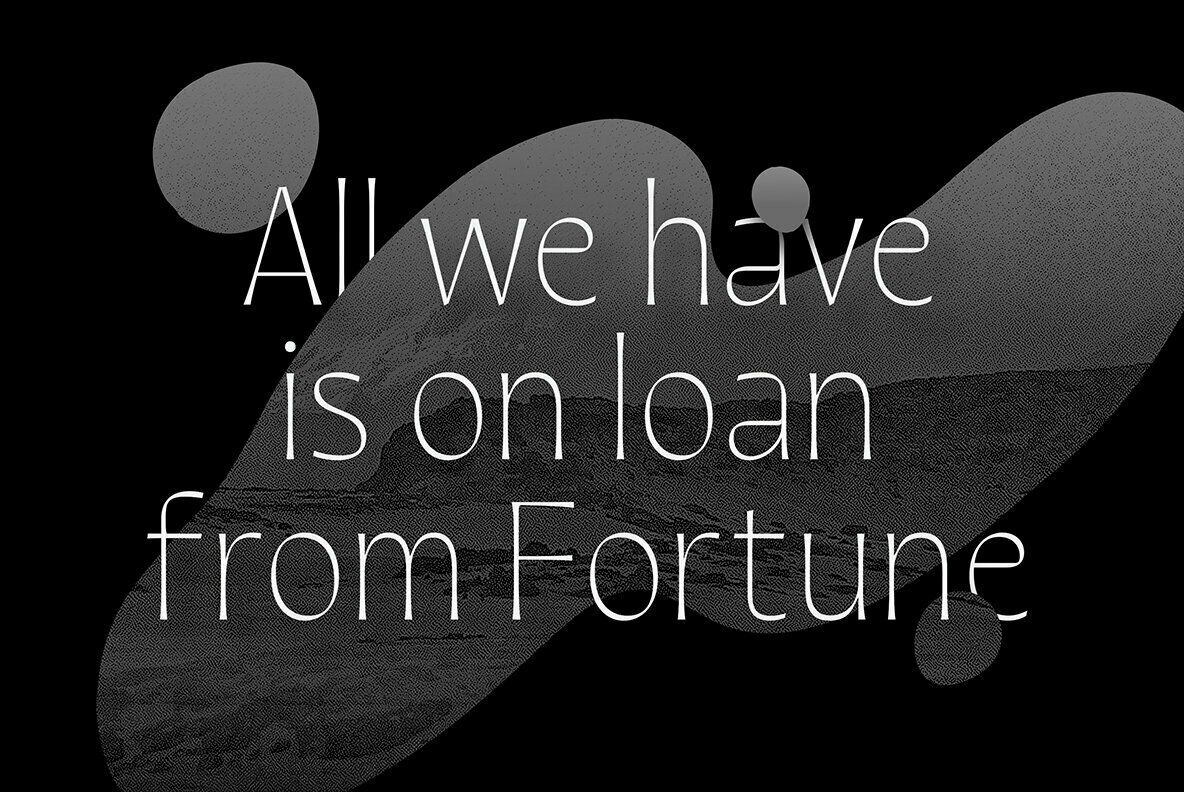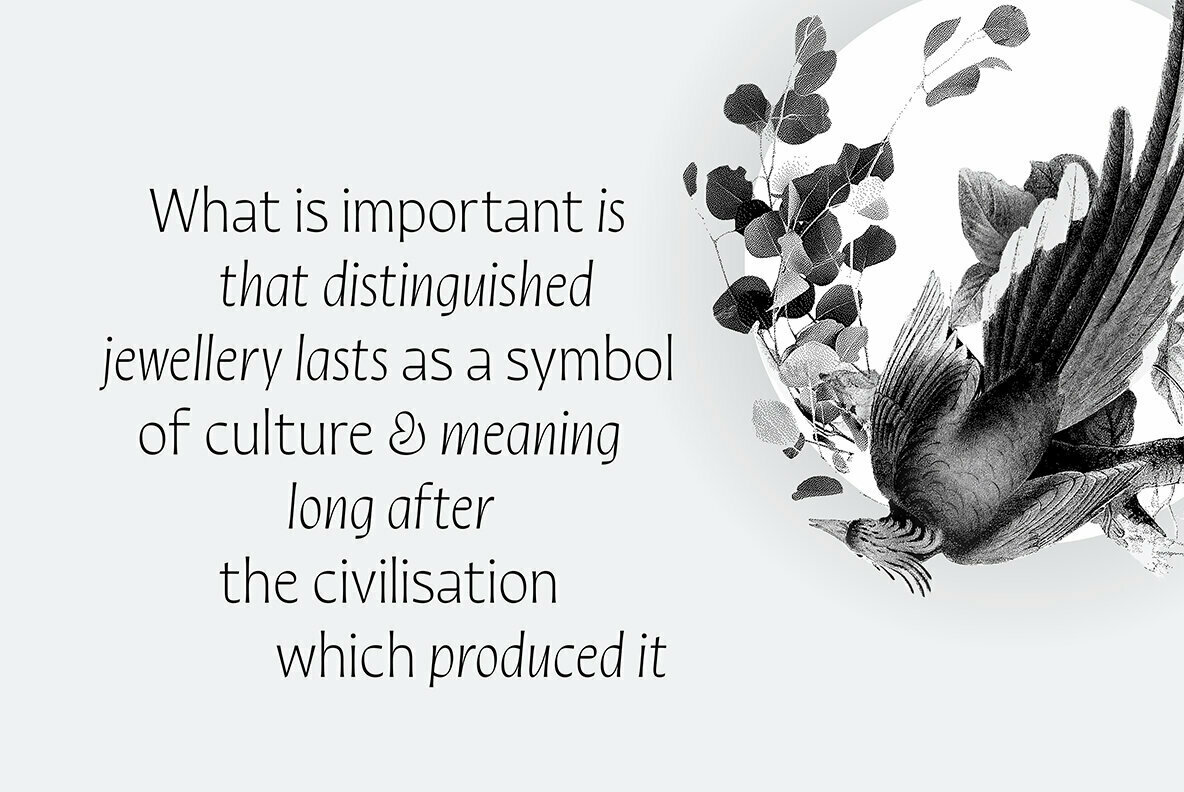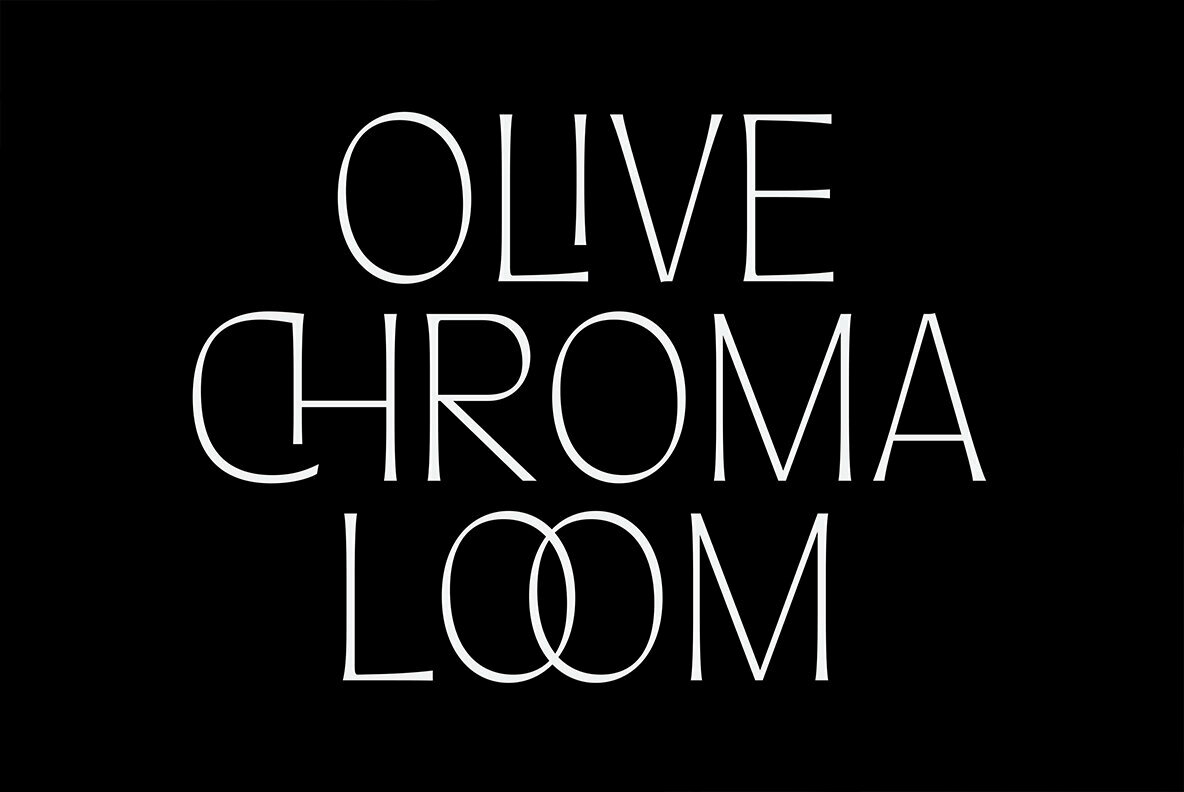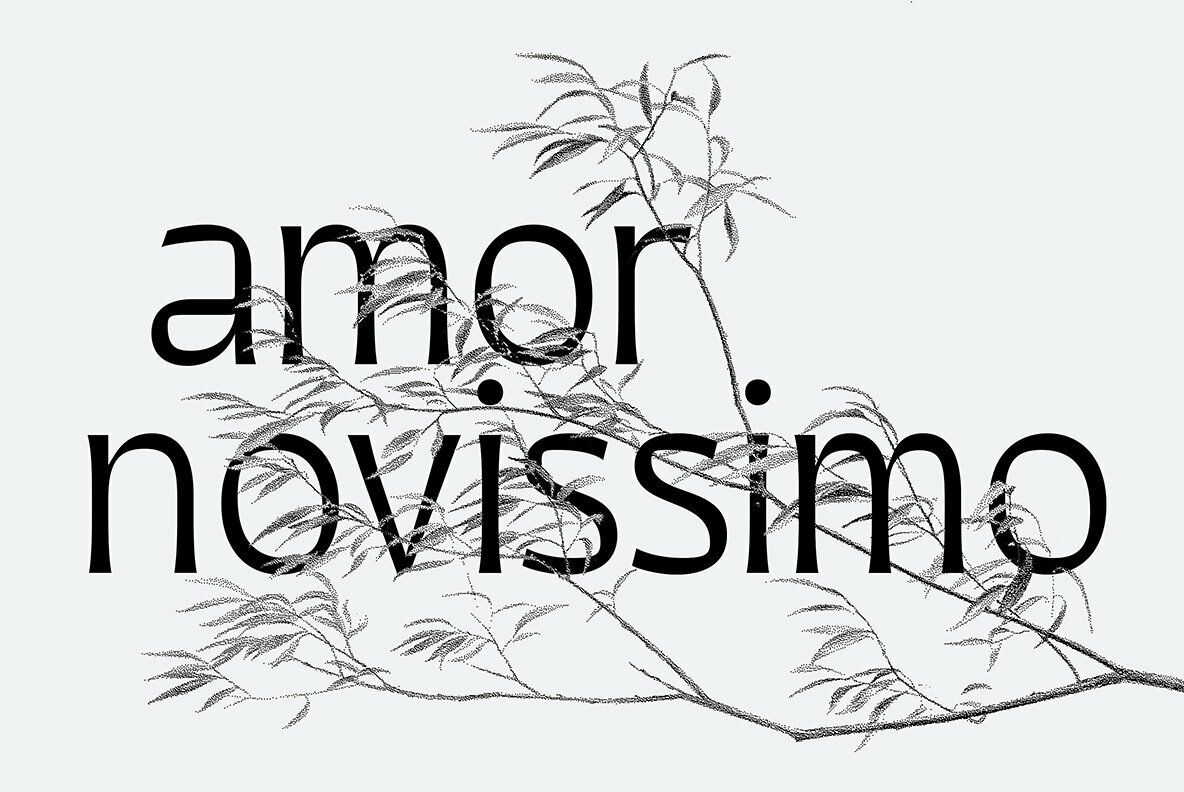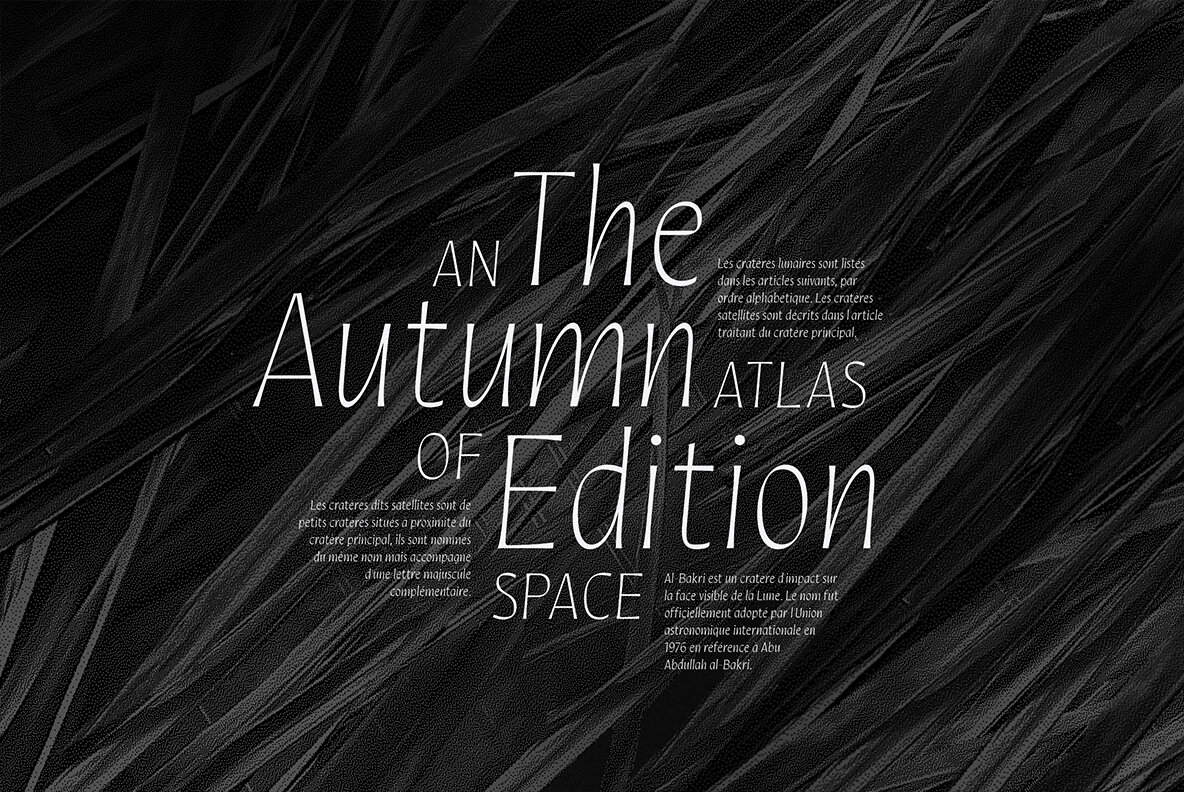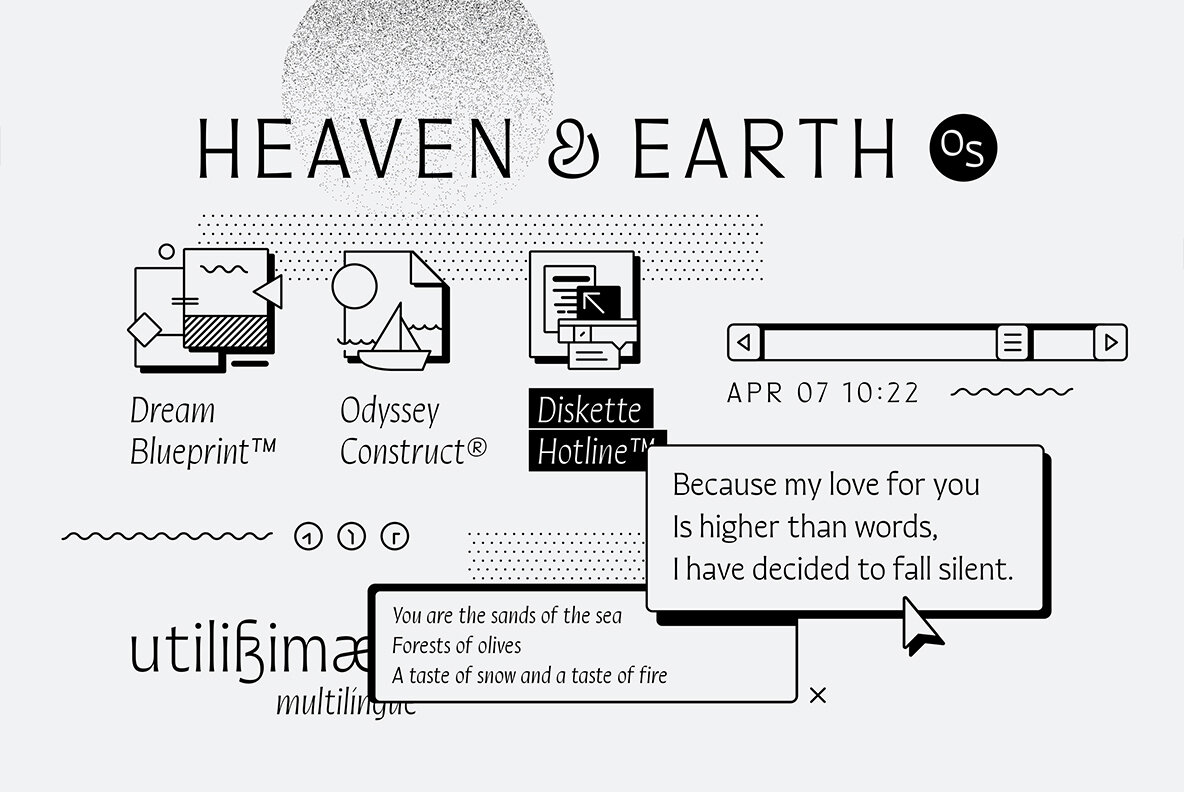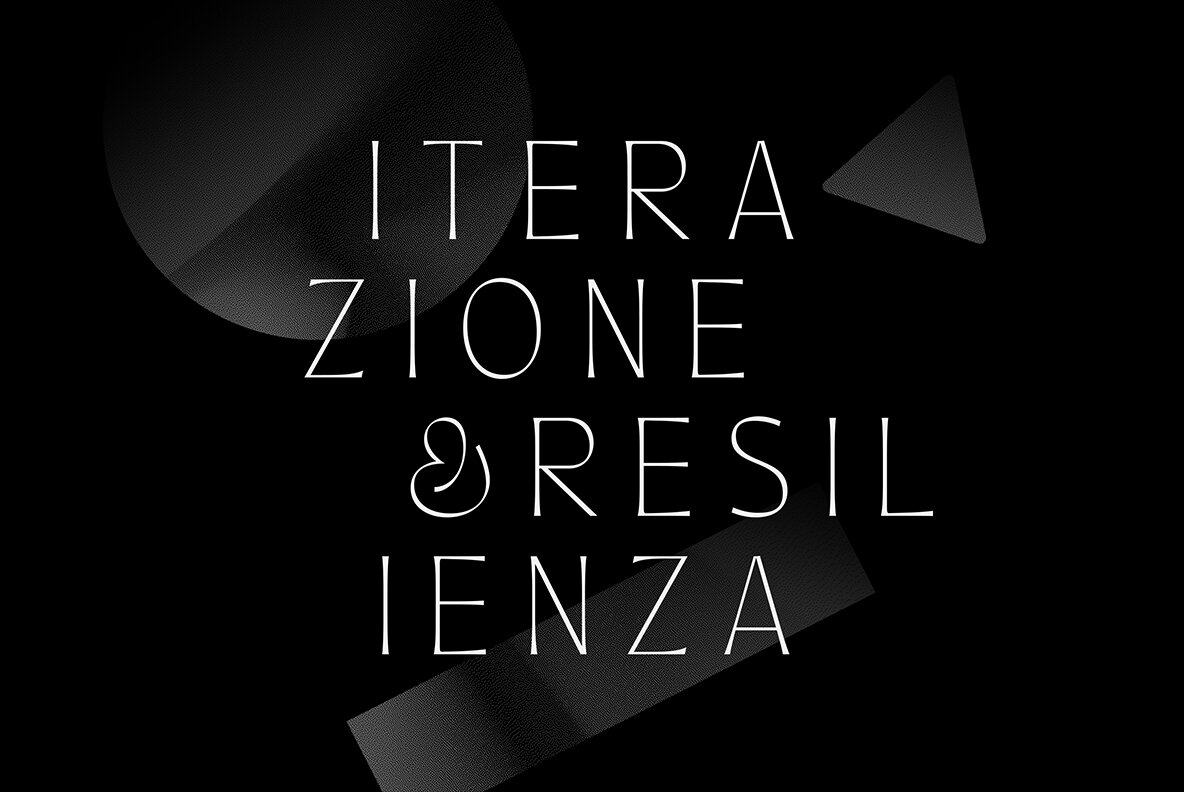
Quiverleaf CF Font
With the graceful movement of a ribbon, Quiverleaf CF glides effortlessly from letter to letter. Five weights – from a delicate thin to a hearty extra bold – combine with striking italics and wide language support for a well-rounded and expressive typeface. Quiverleaf’s versatile design allows for both beautiful text and airy headlines.
Quiverleaf CF pairs well with itself at contrasting sizes and weights; it can also be used effectively alongside both sans typefaces, like Greycliff CF, and simple humanist designs like Artifex Hand CF.
Feature Summary
- 5 weights
- Italics
- Capital ligatures
- Fractions
- Wide language support